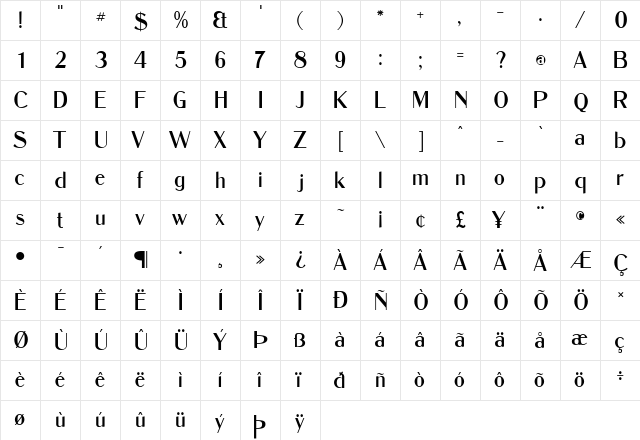
Dukas CF Regular Regular
| Foundry | Chuck's Fonts |
| Designer | Chuck Mountain |
Design Context for Dukas CF Regular Typeface
Dukas CF Regular is a composed and adaptable typeface that performs quietly and consistently across a wide range of design contexts.